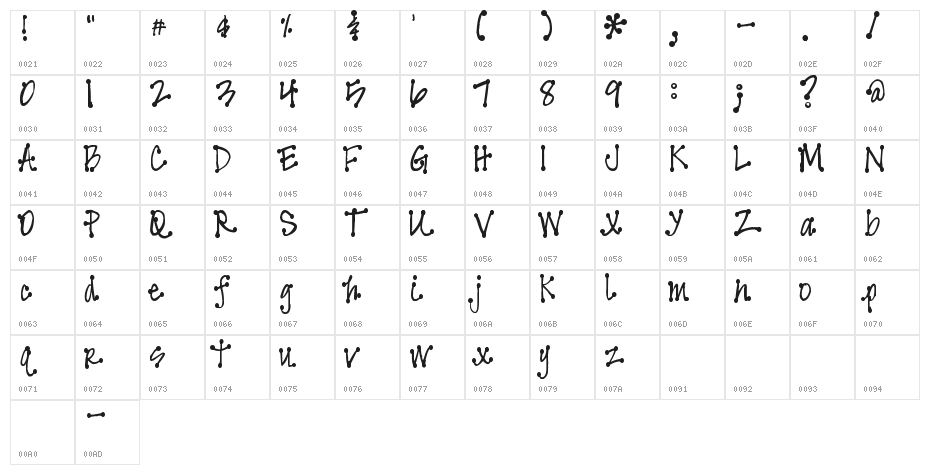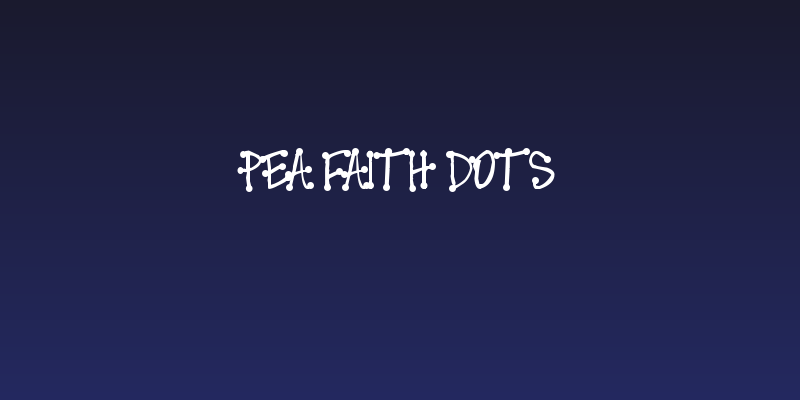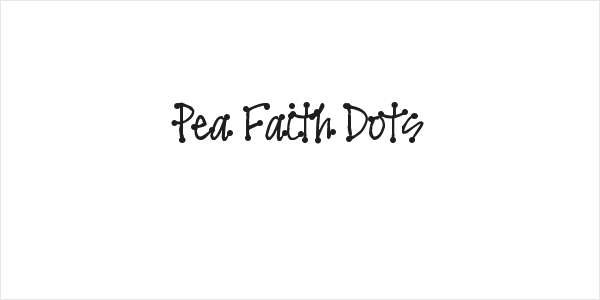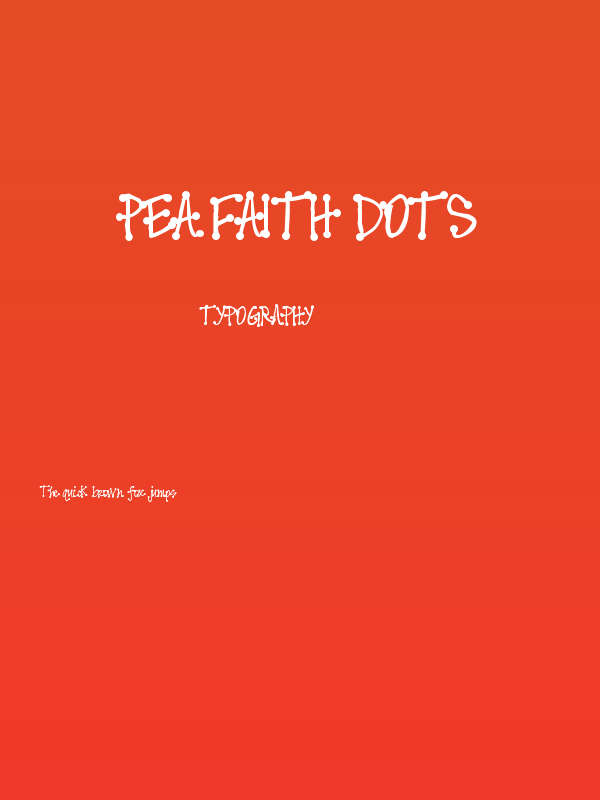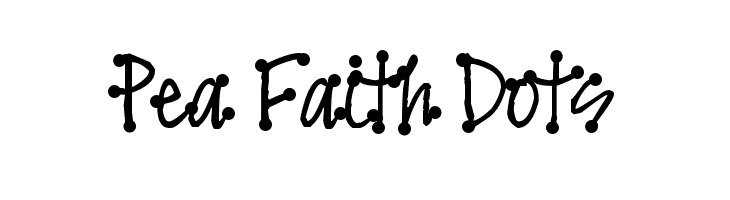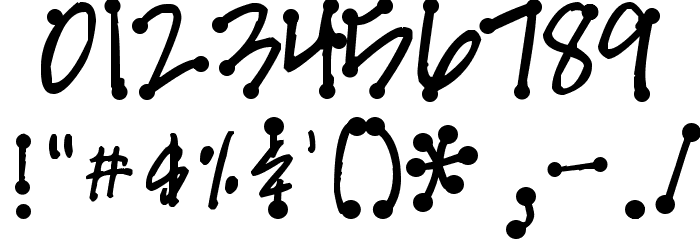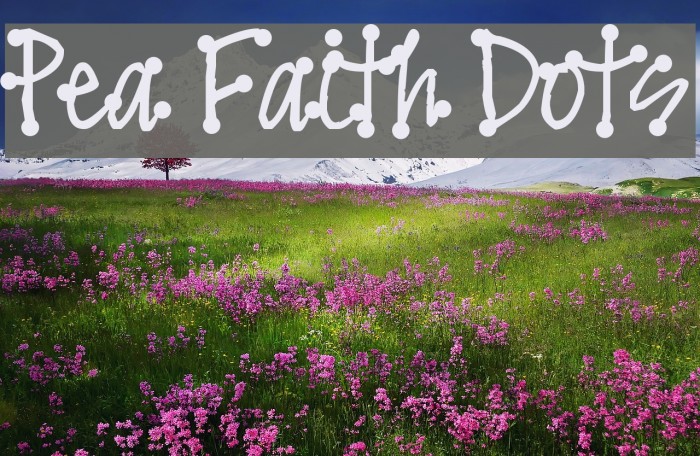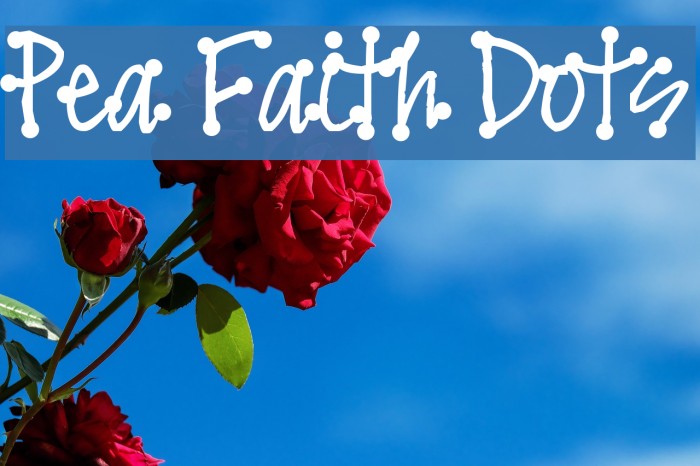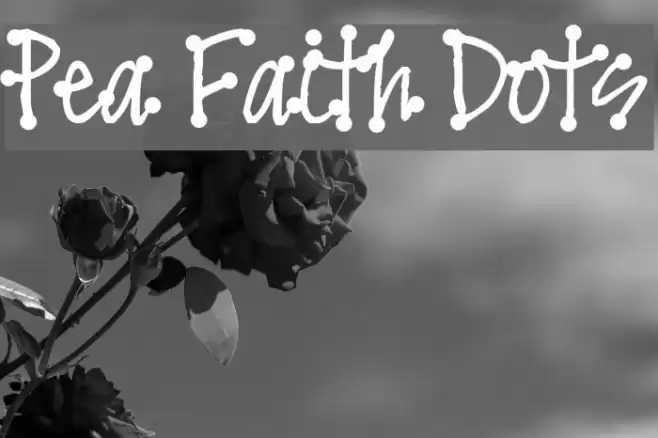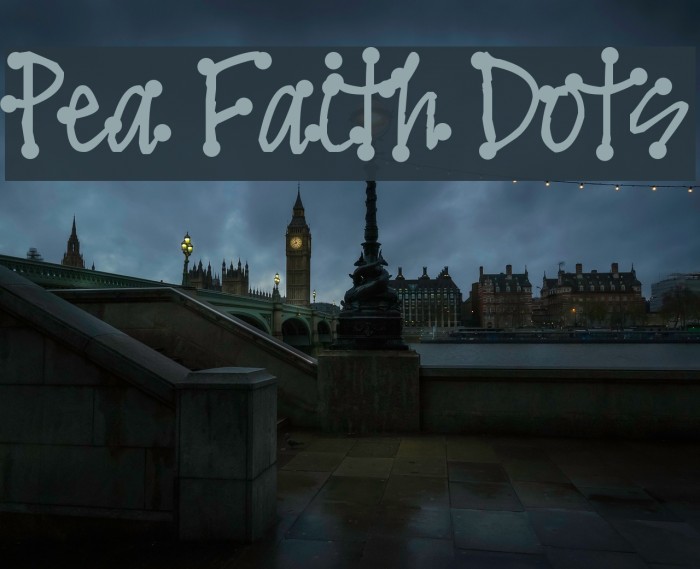
Pea Faith Dots Font
Pea Faith Dots Description
This playful and whimsical font features a unique dotted style that adds a sense of fun and creativity to any design. The letters are connected with dots at the end of each stroke, creating a lively and dynamic appearance. The font maintains a handwritten feel, with irregularities in the letterforms that enhance its charm. It is well-suited for projects that require a personal touch or a casual, friendly vibe. The font includes a full set of uppercase and lowercase letters, numbers, and a variety of special characters, making it versatile for different uses.
| Use Case | Headlines, Logos, Creative projects |
| Proposed Projects | Ideal for children's books, greeting cards, playful branding, and creative posters. |